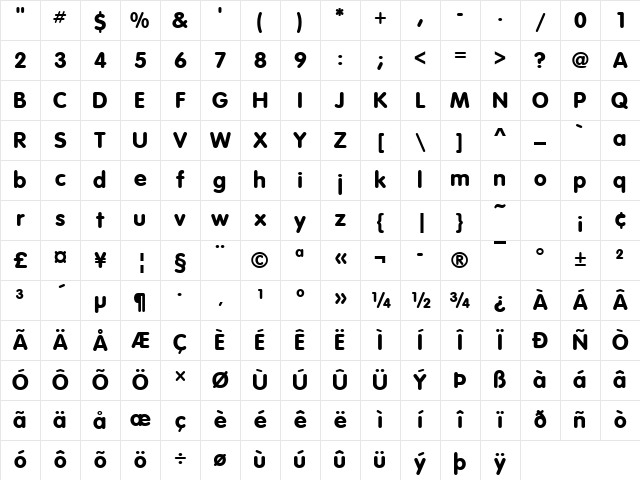
VAGRundschriftD Regular
VAGRundschriftD Family
VAGRundschriftD Regular
Design Context for VAGRundschriftD
VAGRundschriftD is a composed and adaptable typeface that performs quietly and consistently across a wide range of design contexts.